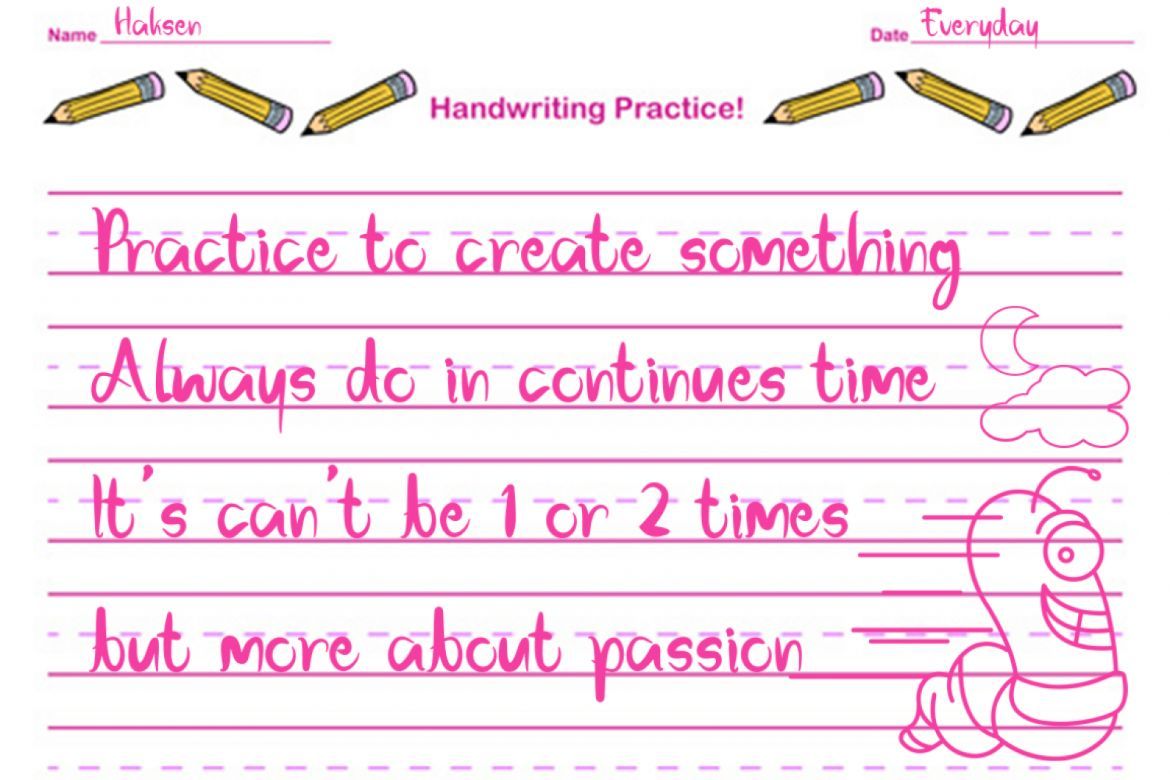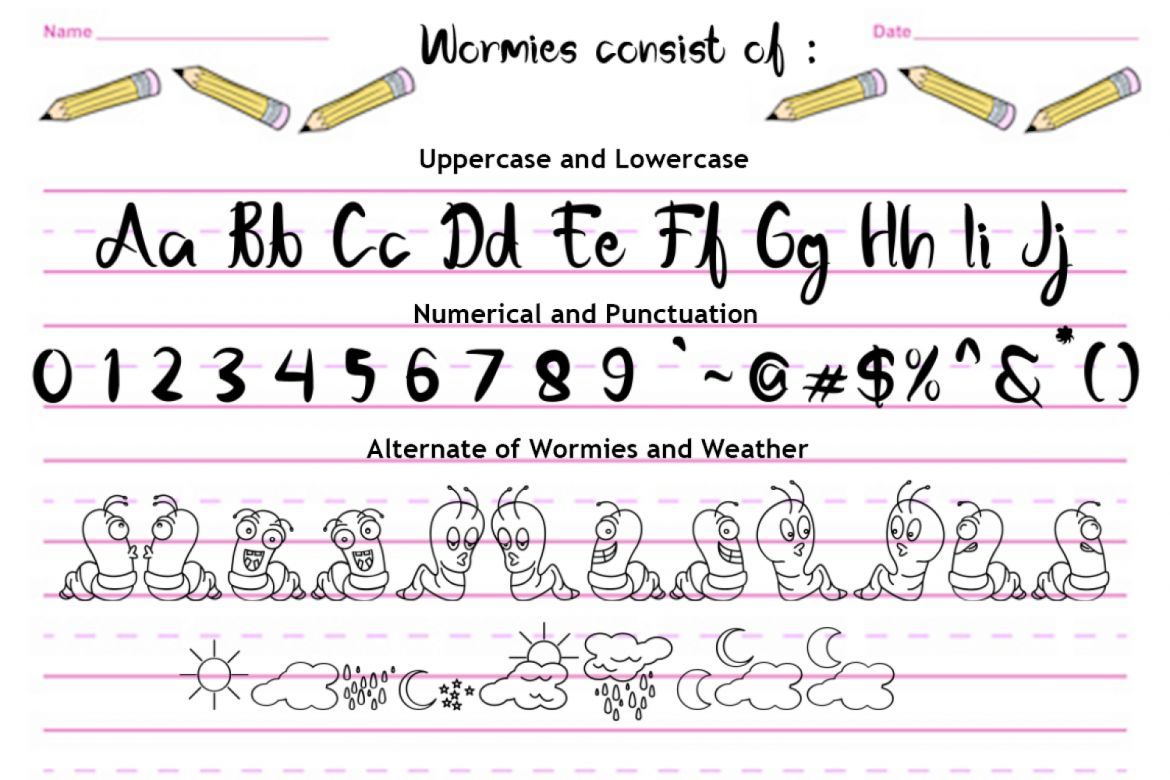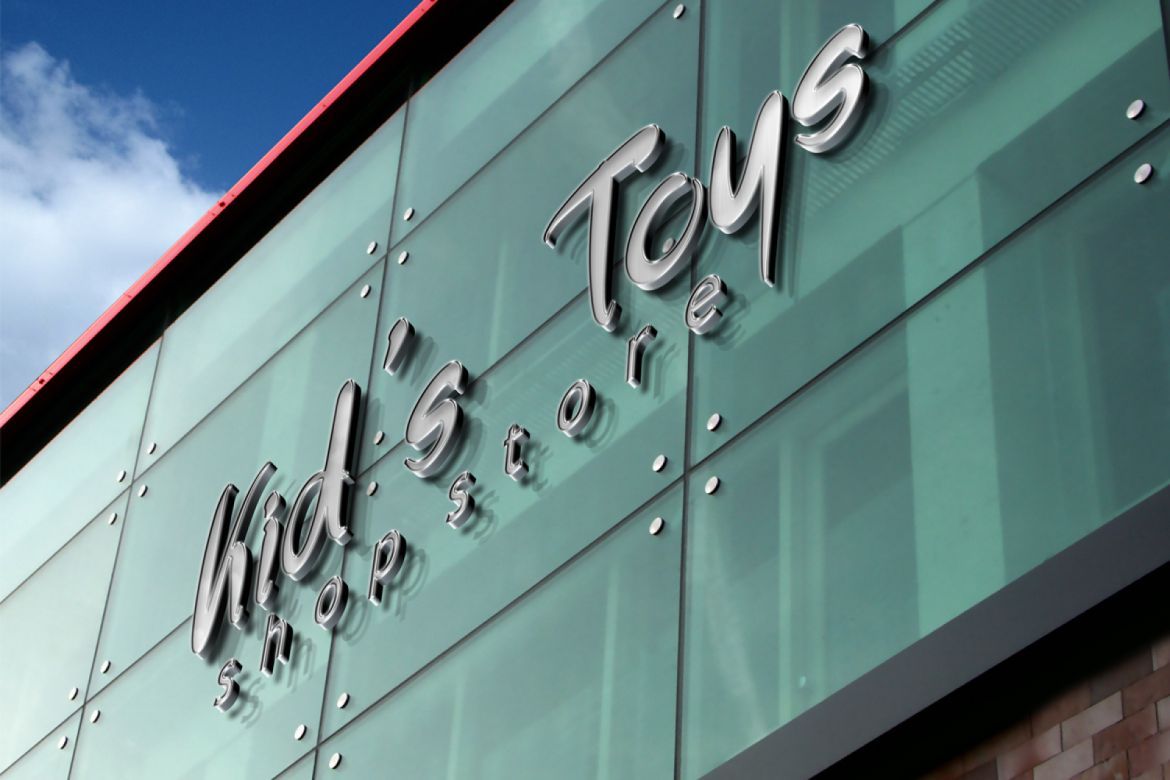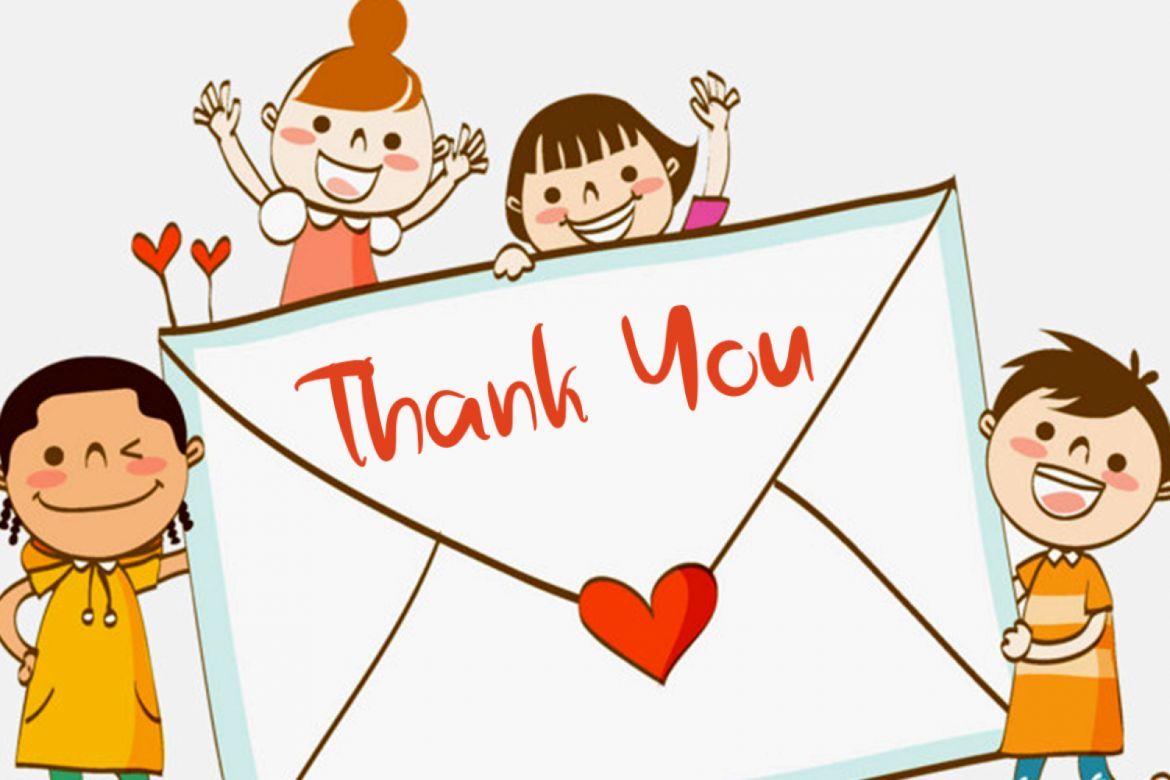
The Wormies Font
I want to present my New font with the name The Wormies.
The Wormies is a unique and funny taste font. Also include of worm icons and weather. As You can see in the preview this font plan with the funny style and unique taste.
How to use The Wormies Icon?
• Please use Number 0-9 to get Weather Icons
• Please use A-Z in uppercase to get the Worm Icons.
• each of font can be mix for project